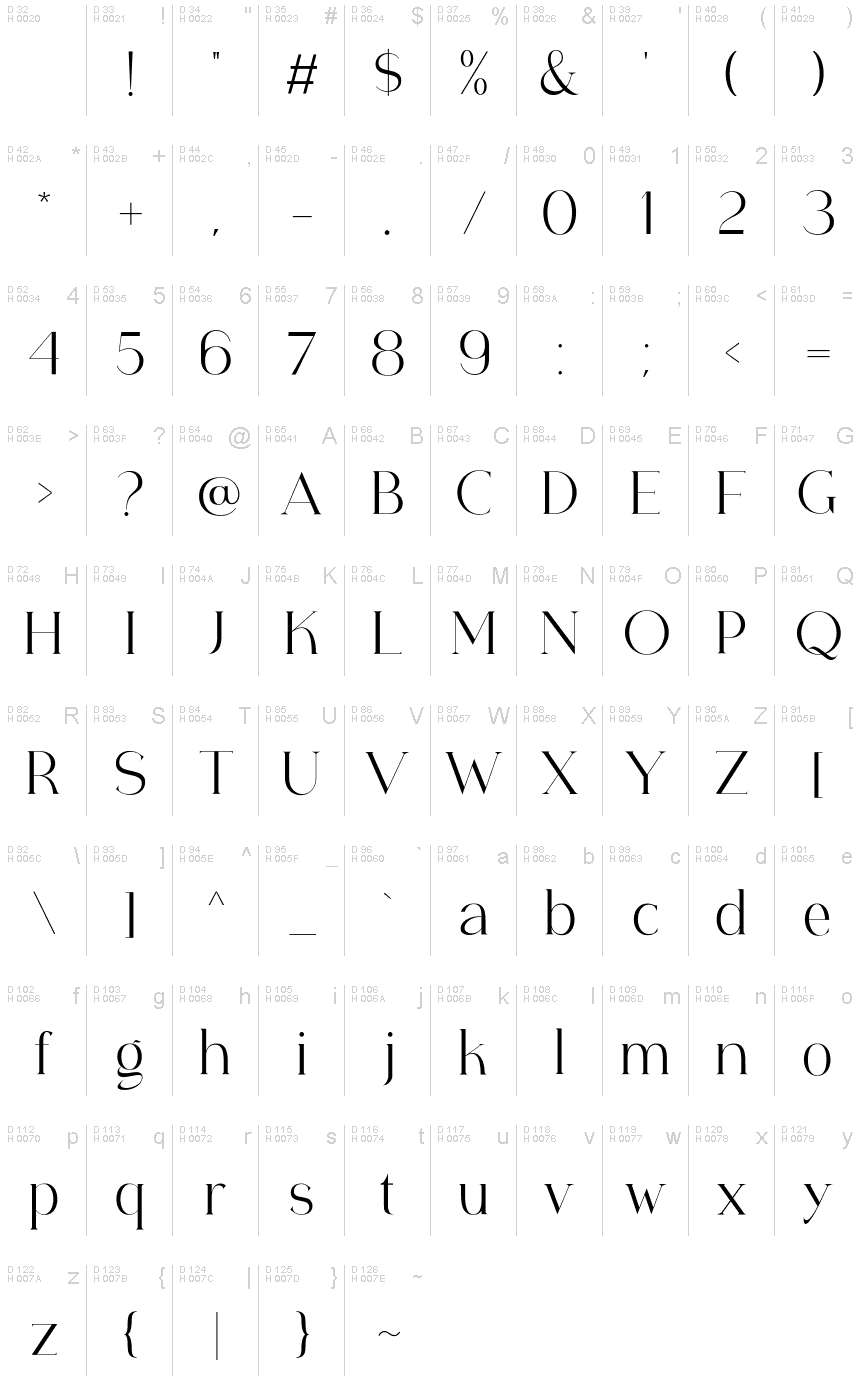
Koeta Regular
Introducing Koeta - a light serif typeface designed by Gholib Tammami. Perfect for adding a classic yet modern feel to your projects, Koeta is ideal for logos, posters, book covers and more!
Gholib Tammami